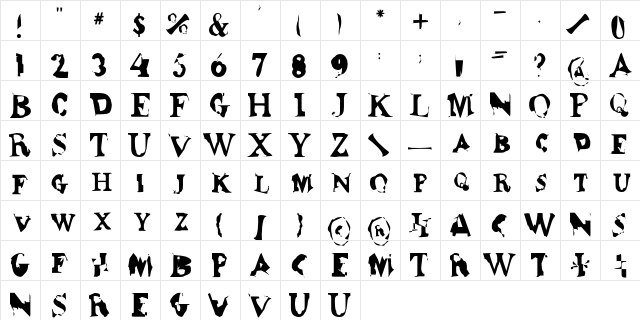
Erosive Regular
Design Context for Erosive Typeface
Erosive is a composed and adaptable typeface that performs quietly and consistently across a wide range of design contexts.